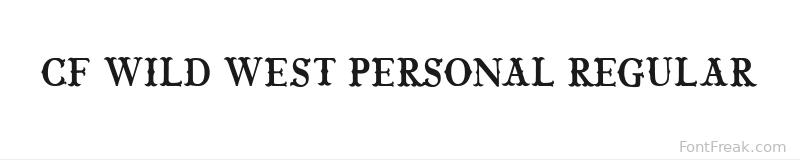
CF Wild West PERSONAL Regular
CF Wild West PERSONAL Regular by Cloutierfontes is a striking display font that draws inspiration from the rugged aesthetic of the American frontier. This decorative typeface features a bold, serif style characterized by its distinctive stroke weight and an authentic, vintage feel. The letters exhibit a unique rustic charm, with slight variations in contrast that enhance its handcrafted appearance. The spacing is thoughtfully designed to ensure readability while maintaining a strong visual impact, making it ideal for various creative applications.
This font excels in several specific use cases. It is perfect for creating captivating wedding invitations that evoke a sense of nostalgia and romance. Additionally, its bold presence makes it an excellent choice for movie posters, particularly those themed around westerns or adventure. Restaurant menus can benefit from its unique style, providing a memorable and engaging presentation that enhances the dining experience. Small business branding, especially for artisanal shops or rustic-themed ventures, can also gain an edge with this distinctive font.
What sets the CF Wild West PERSONAL Regular font apart is its authentic connection to the themes of exploration and adventure. The combination of its vintage aesthetic and modern usability creates a compelling choice for any design project that seeks to capture the spirit of the wild west. For those interested in incorporating this unique style into their work, the CF Wild West PERSONAL Regular font free download is readily available, ensuring that creativity knows no bounds.